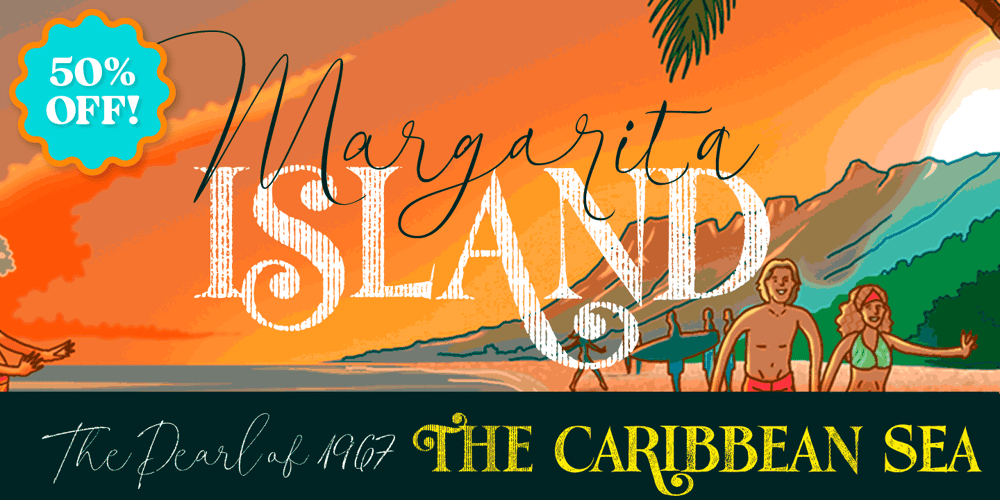
Man Ray
Man Ray font
Man Ray Font Family was designed by Carlos Fabián Camargo Guerrero and published by Andinistas. Man Ray contains 6 styles and family package options. ManRay is a photogenic typefamily of 6 fonts designed by @andinistas, with more than 2600 glyphs distributed in 3 Scripts and 3 Caps. Its shapes are ideal for attention-grabbing and for its eloquent character set, each style is presented with three levels of erosion planned with meticulous dotted texture bézier drawing, diagonal texture, and vertical texture pattern.ManRay Script, Script2, Script3 is based on calligraphy made with a fine tip brush and therefore communicates pleasant and attractive ideas. Its capital letters measure three times the height of the lower case and stand out for its artistic curved lines ideal for writing on photos, logos, labels, packaging, posters, covers of food products, spirits, organic teas, etc. In that order, it also offers other expressive alternate letters that activate spontaneously, and each of the three styles is case-infinite with and without Swash, Stylistic, and Titling Alternates.ManRay Caps, Caps2, Caps3 are inspired by calligraphic Roman letters drawn with a brush with a square tip and are equipped with descending flourishes for word start and end. The core of ManRay mixes the ideas of Ed Benguiat and Ross F. George and its name is a tribute to the Dada hero who changed history a century ago by working against the conventions of art and photography.